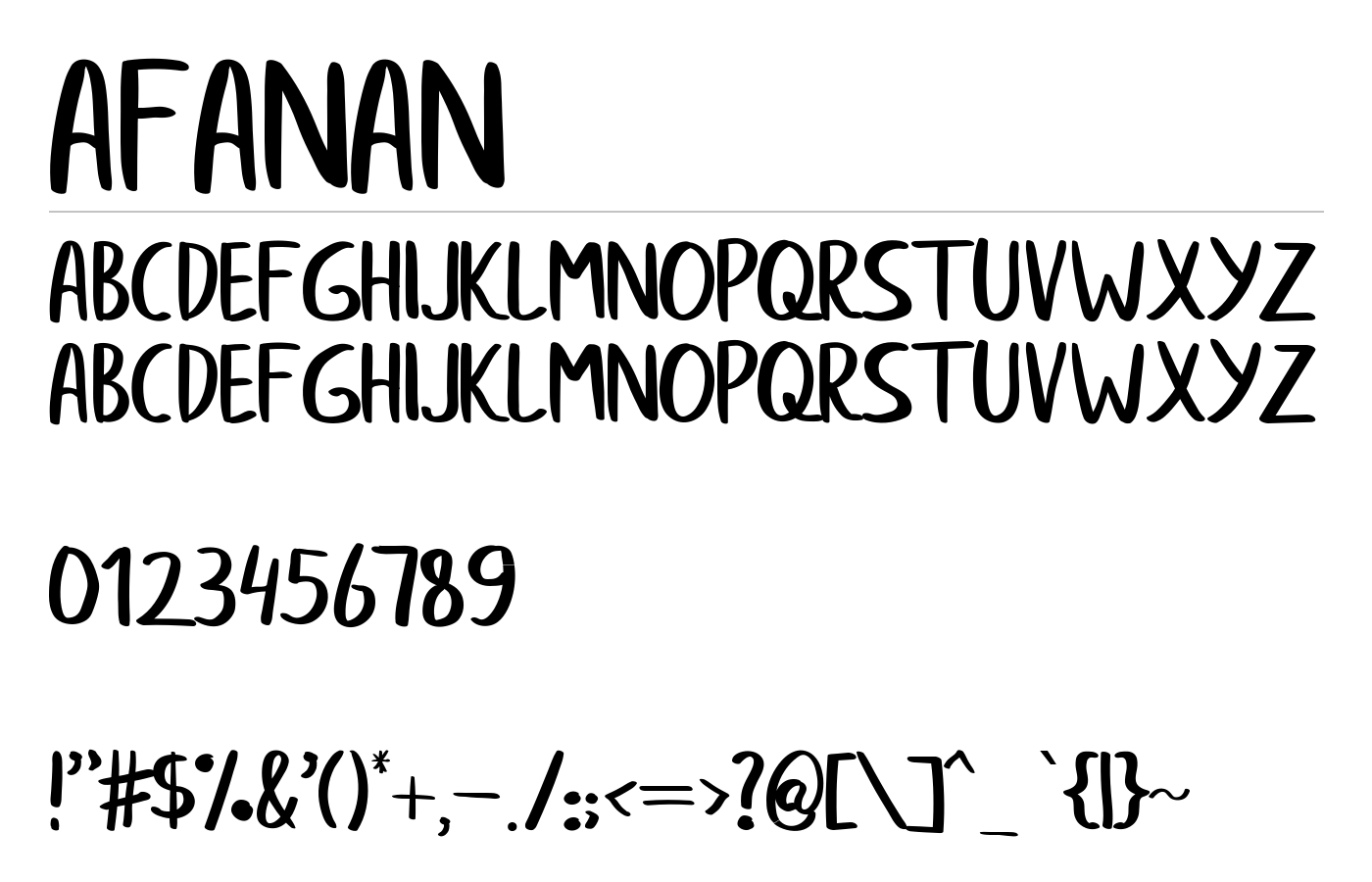
Afnan is a playful and casual sans serif font featuring a hand-drawn style with tall, narrow letterforms and slightly irregular strokes that give it a friendly, approachable feel. Its rounded edges and informal shapes work well for creative projects, children's designs, and fun branding, making it ideal for headlines, packaging, and social media where a warm, personal touch is desired. This font's lively personality and clear readability make it a great choice for adding charm and character without sacrificing legibility.
afanan Font
About afanan Font